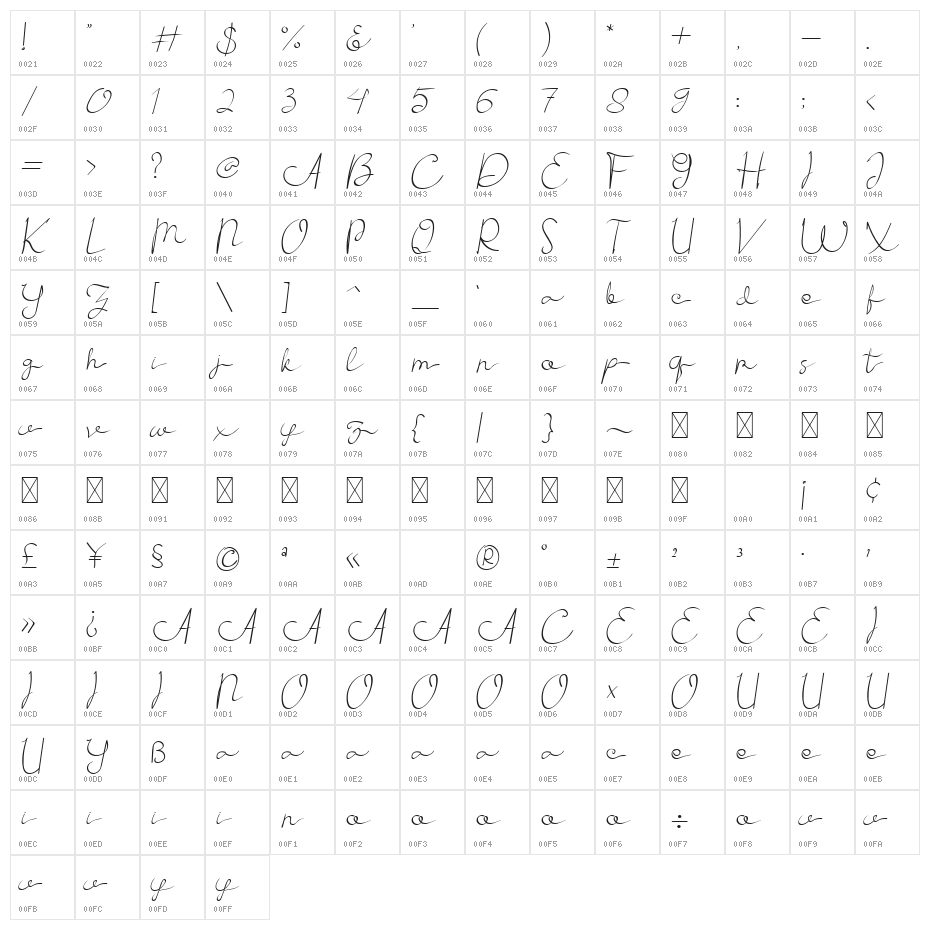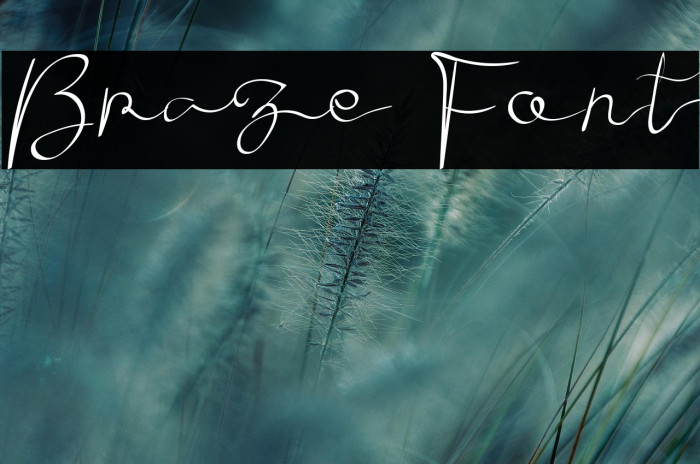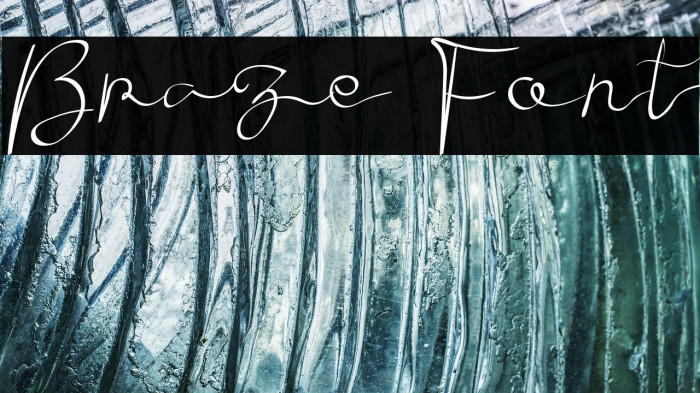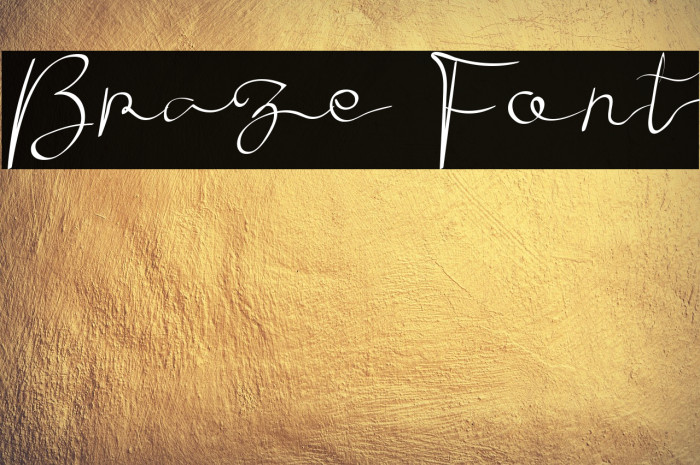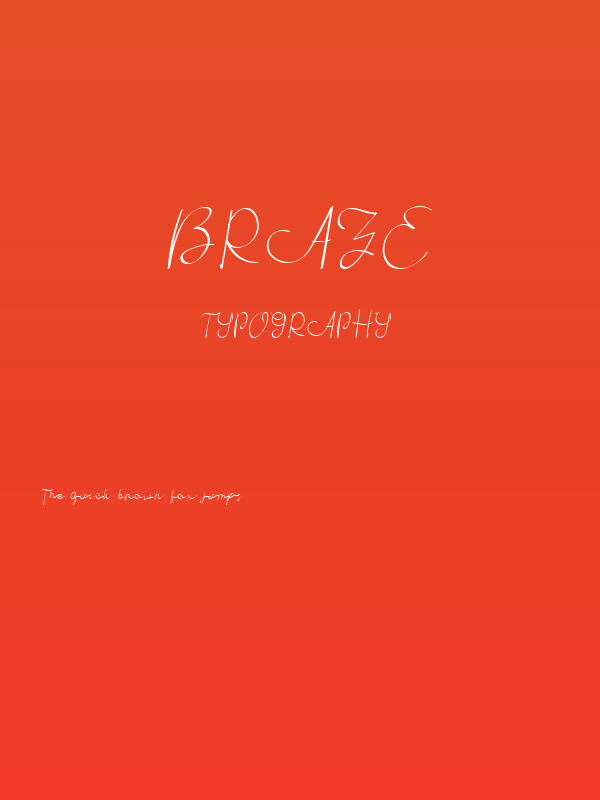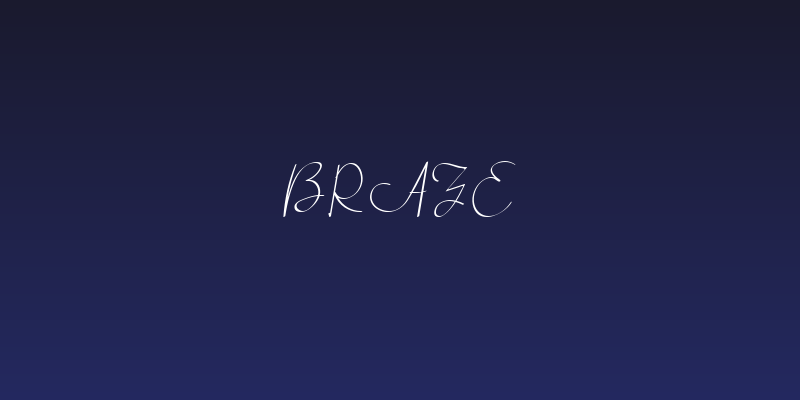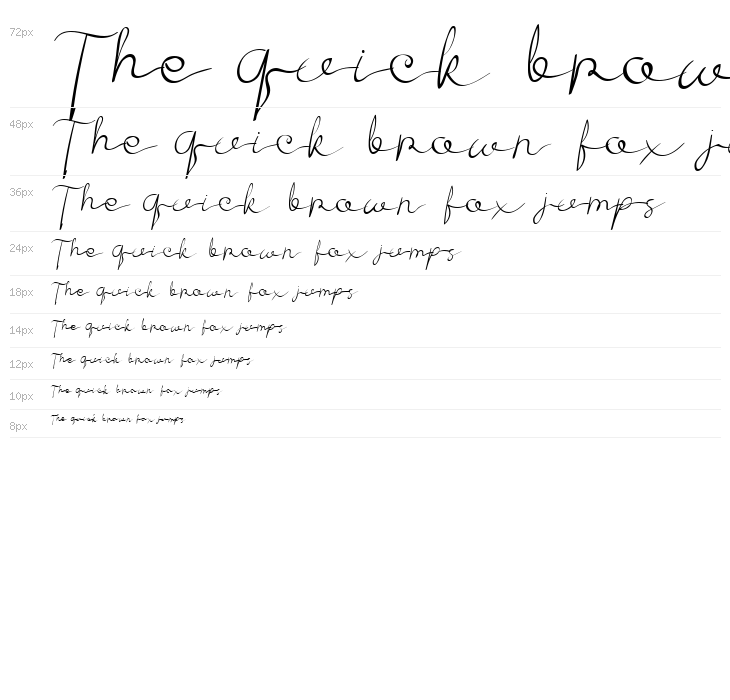
Braze Font
Braze Description
This elegant script font features a fluid and graceful design, characterized by its smooth, flowing lines and delicate curves. The uppercase letters exhibit a sophisticated flair with subtle loops and swashes, while the lowercase letters maintain a consistent, connected style that enhances readability. The numerals are stylishly crafted, complementing the overall aesthetic. Special characters are thoughtfully integrated, maintaining the font's cohesive appearance. This font's refined and artistic nature makes it ideal for projects that require a touch of elegance and sophistication.
| Overall Style | Elegant |
| Use Case | Logos, Invitations, Decorative text |
| Proposed Projects | Ideal for wedding invitations, greeting cards, branding, and elegant packaging designs. |